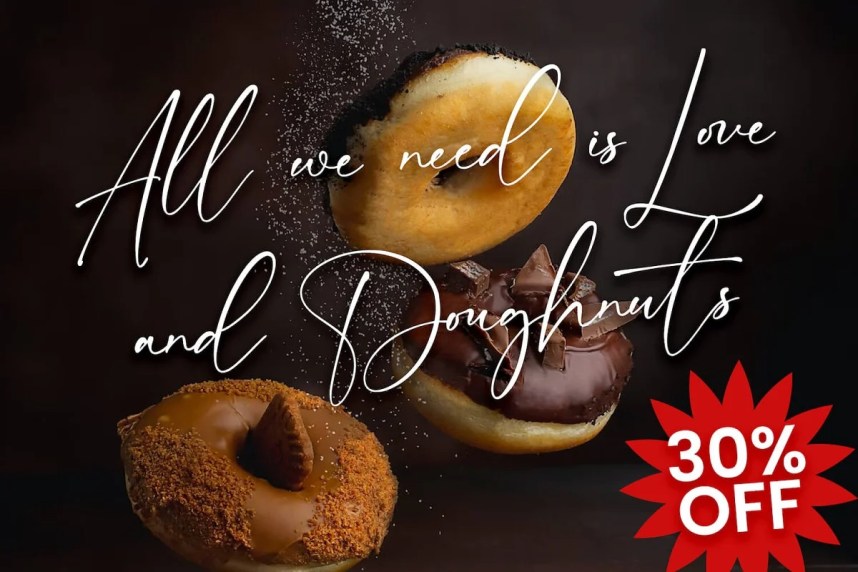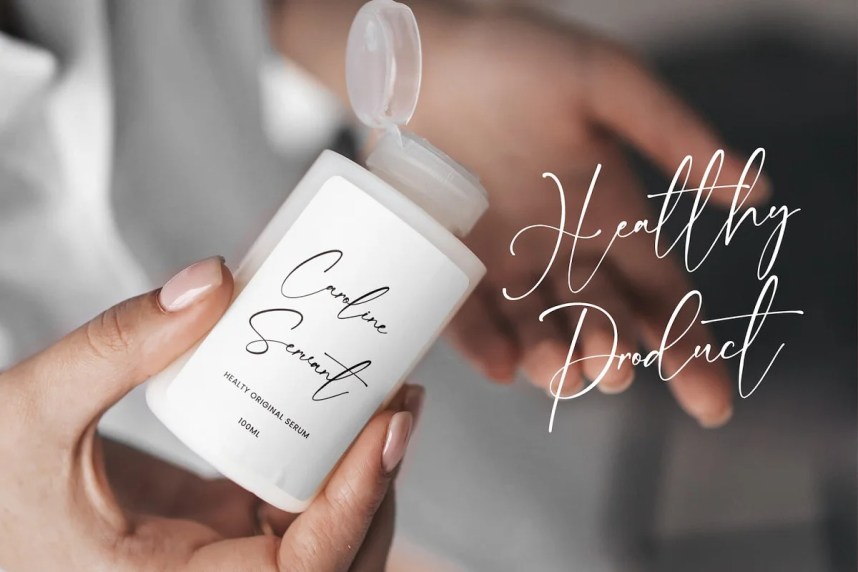
Sembilu Script Font is a modern handwritten typeface crafted & designed by StringLabs. This font is made in a modern style, very casual, and suitable for your various design needs. It has beautiful and well balanced characters and as a result, it matches a wide pool of designs. Add it to your most creative ideas and notice how it makes them come alive!